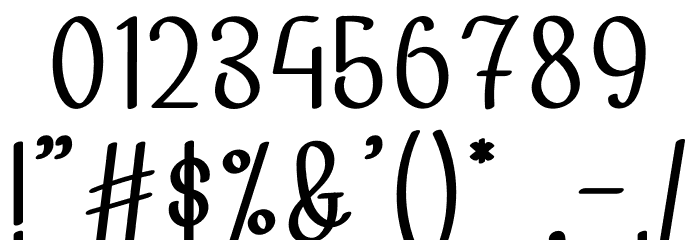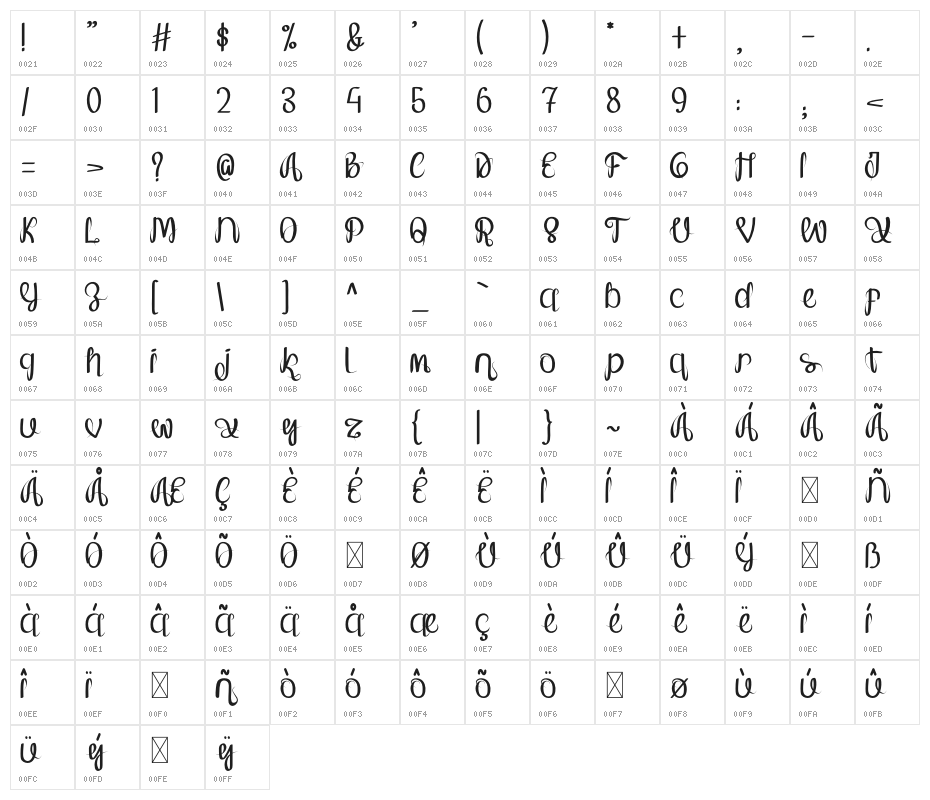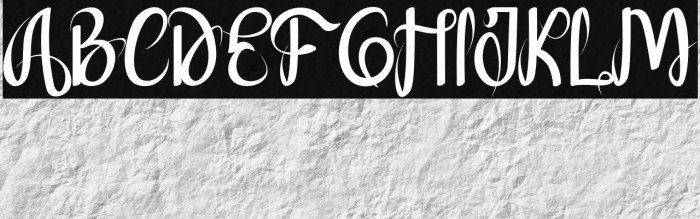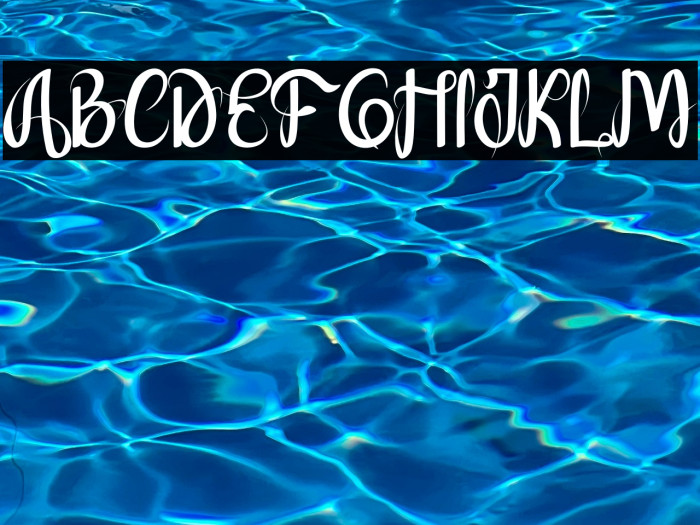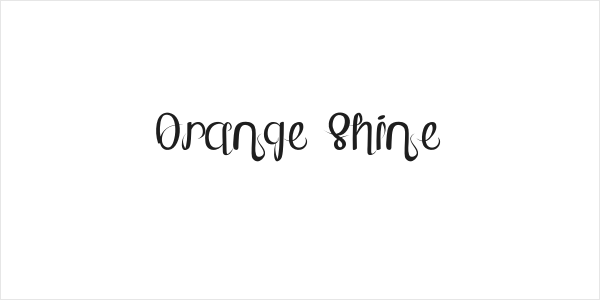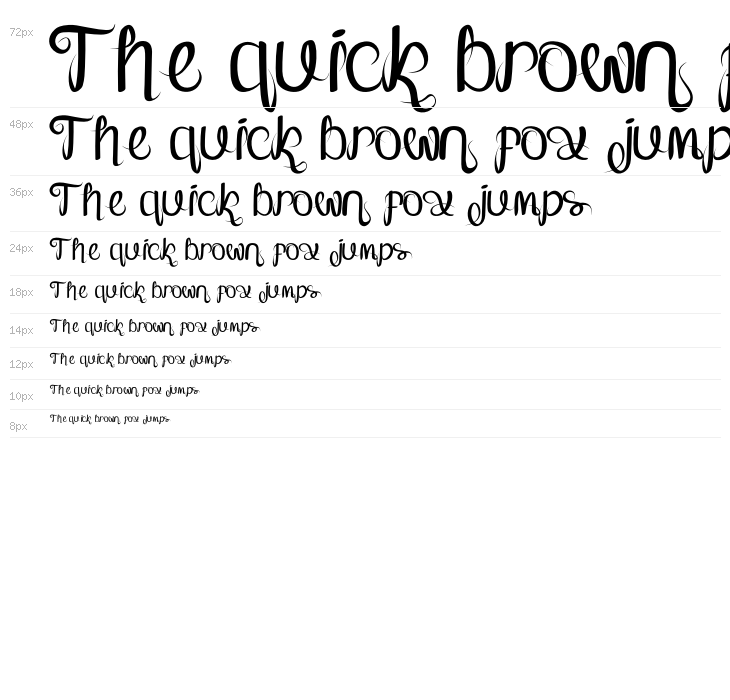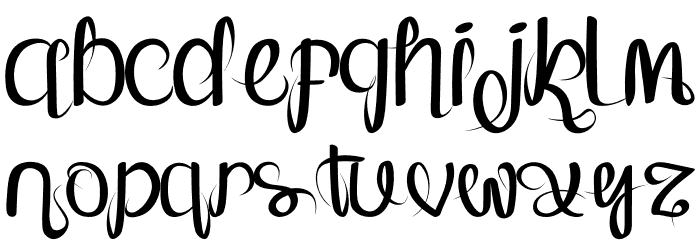
Orange Shine Font
Orange Shine Description
This font features a playful and whimsical script style, characterized by its flowing, interconnected letters and decorative flourishes. The uppercase letters exhibit a bold presence with exaggerated loops and curves, while the lowercase letters maintain a consistent, fluid motion. The numerals are distinct and easy to read, complementing the overall style. Special characters are creatively integrated, adding to the font's charm. The design is both elegant and lively, making it suitable for a variety of creative projects.